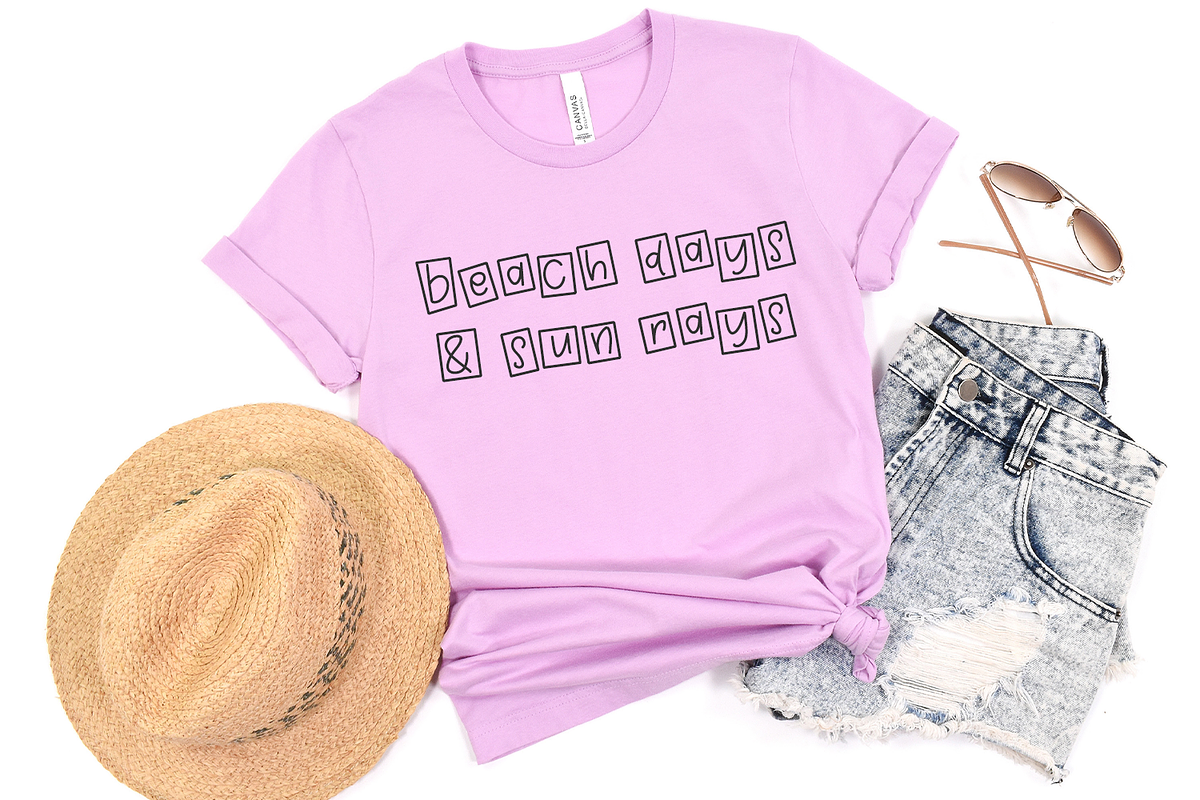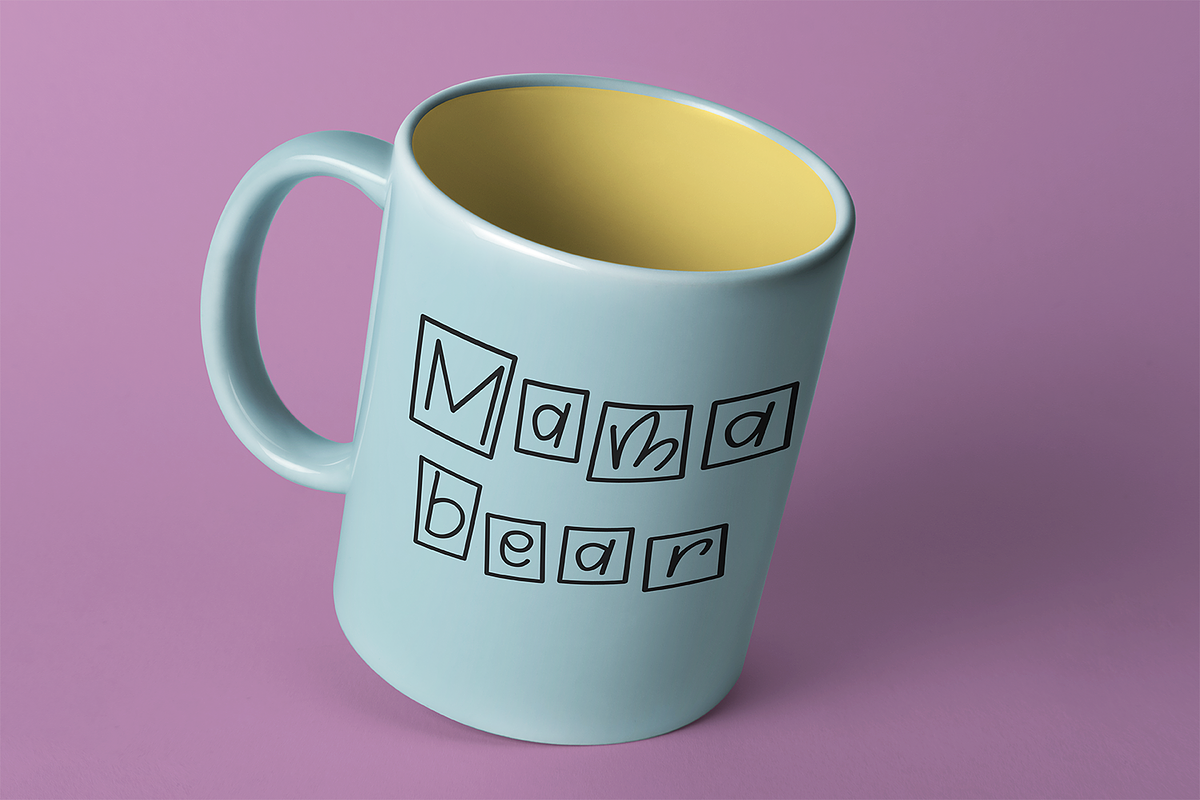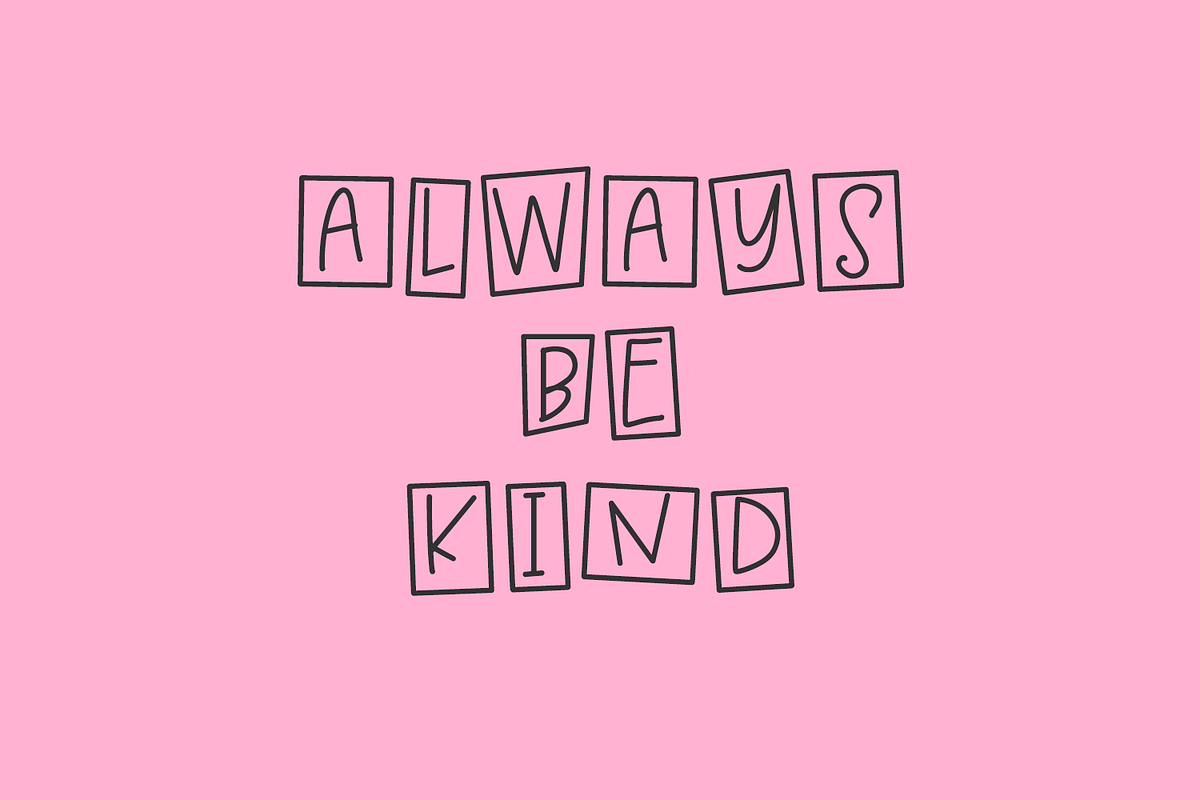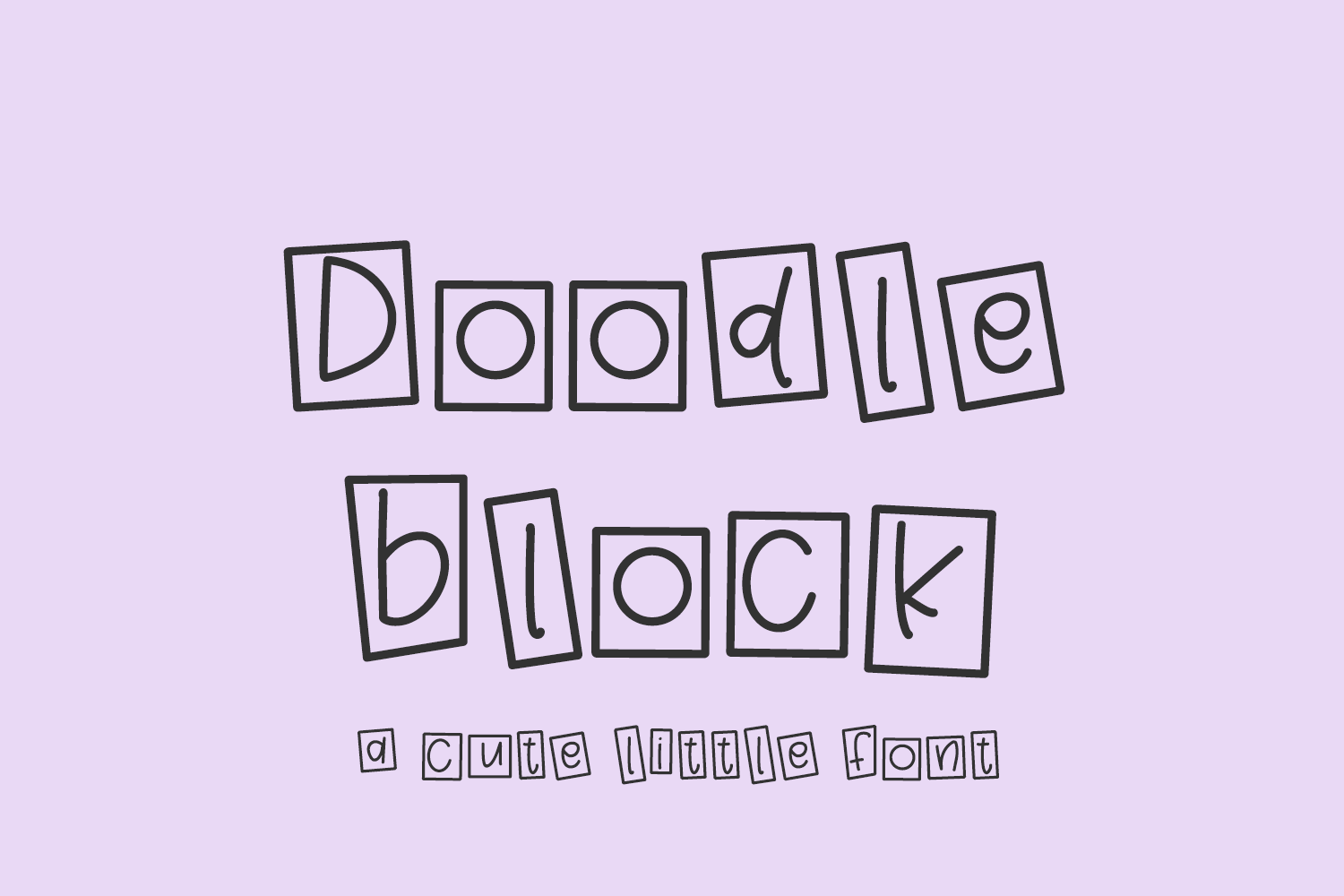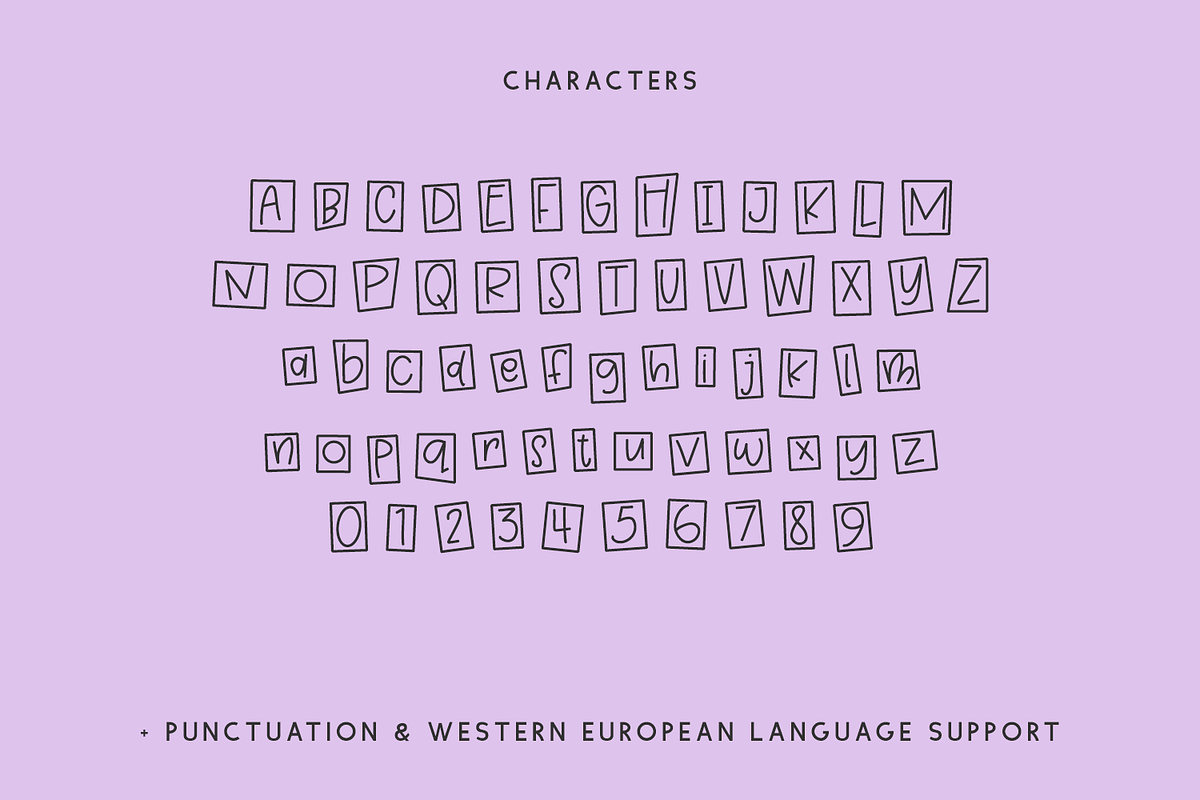
Doodleblock Display Font
Doodleblock is a neat sans font encased in blocks for a fun touch. Doodleblock is great for greeting cards, painted banners, digital planners, note-taking apps, Canva, Cricut projects, Silhouette projects, designing SVG files, laser cutting projects, & more.
Doodleblock Sans includes:
- full upper + lowercase characters
- numbers + punctuation
- Western European language support - English, French, Spanish, Portuguese (Brazil), Portuguese (Portugal), Italian, German (Germany), German (Austria), Dutch, Danish, Swedish, Norwegian (Bokmål and Nynorsk), Finnish, Icelandic, Irish, Welsh